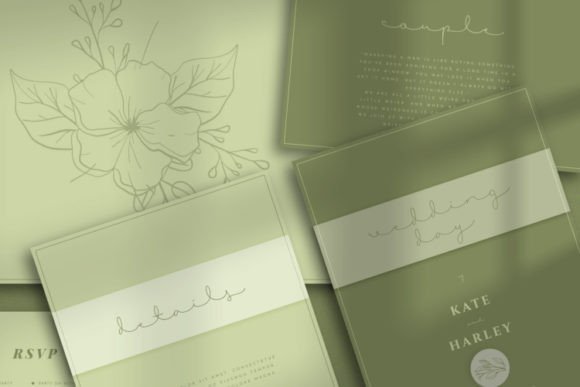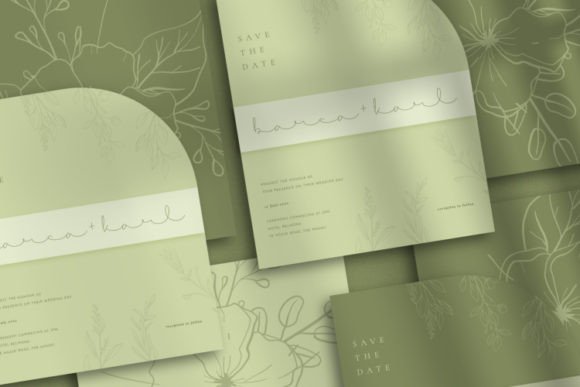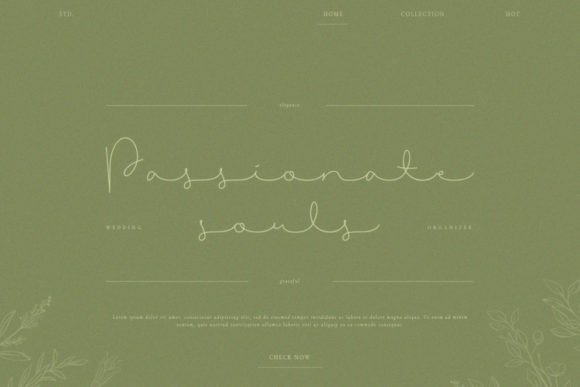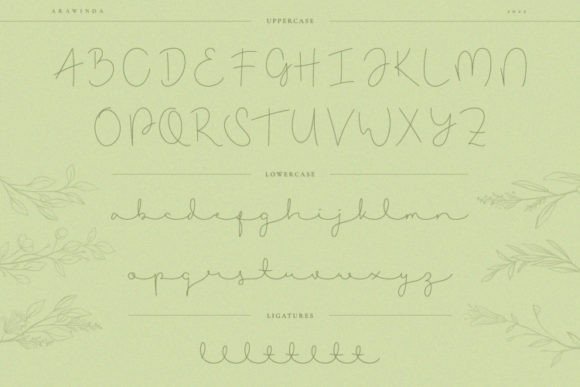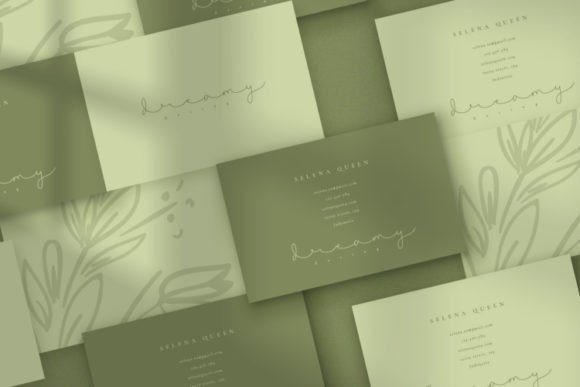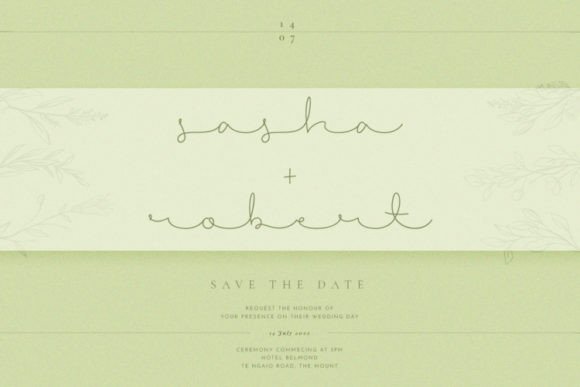
A New Favorite Font in Town: Arawinda
Have you ever been in the middle of a creative project, pouring your heart and soul into it, when suddenly a spark of inspiration hits you? Maybe it’s the perfect combination of colors, or a clever play on words. For many designers, this moment is what drives them to create something truly magical.
For those looking to add a touch of elegance to their next project, we’re excited to introduce the Arawinda Font. This flowing handwritten font is designed to evoke a sense of timeless sophistication, making it the perfect addition to any design. Whether you’re working on a wedding invitation, a branding campaign, or a personal art piece, the Arawinda Font is sure to bring a unique touch to your work.
- Unique Characteristics: The font features a unique blend of traditional and modern elements, with intricate details and ornate flourishes, making it ideal for decorative and artistic applications.
Arawinda Font Review
Initially, I was drawn to the Arawinda font due to its elegant and intricate design. ✨ The font’s unique blend of traditional and modern elements makes it suitable for a wide range of projects, from luxury branding to artistic compositions.
- The font’s ligatures and swashes add a touch of sophistication and personality to the overall design.
- The numerous weights and styles available make it easy to adapt the font to different design contexts.
- The font’s fluid curves and rounded edges create a sense of approachability and warmth.
- ⚠️ The font’s complexity may lead to compatibility issues in certain software or operating systems.
- ⚠️ The font’s intricate design may not be suitable for small-scale or low-resolution applications.
In my opinion, the Arawinda font is a beautiful and versatile addition to any designer’s toolkit. While it may require some extra attention to ensure compatibility and optimal use, its unique charm and aesthetic value make it well worth the effort.
Tips for Getting the Most Out of Arawinda Font
Use Arawinda Font for creative and artistic designs, such as invitations, posters, and social media graphics.
Experiment with different font sizes and styles to create visual interest and emphasis.
Combine Arawinda Font with other creative elements, such as images and graphics, to create a unique and eye-catching design.
Arawinda Font is ideal for:
Wedding invitations and decorations
Social media graphics and posts
Posters and flyers